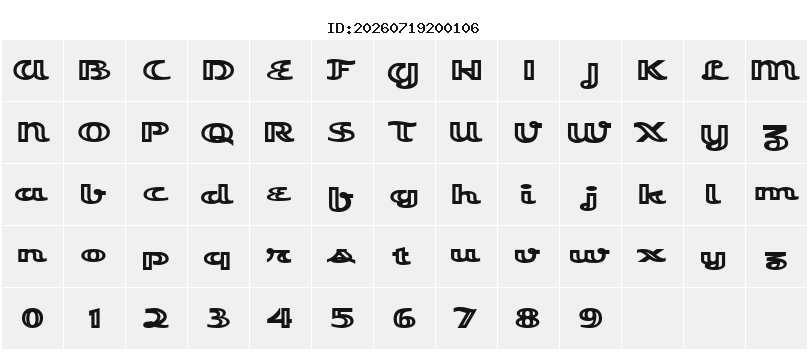
EsquivelEngraved Preview
• Font Name: EsquivelEngraved
• Full Font Name: EsquivelEngraved
About EsquivelEngraved.ttf
EsquivelEngraved.ttf is a modern, elegant sans-serif font designed for ultimate readability and visual harmony. Perfect for branding, headlines, web design, and print materials.